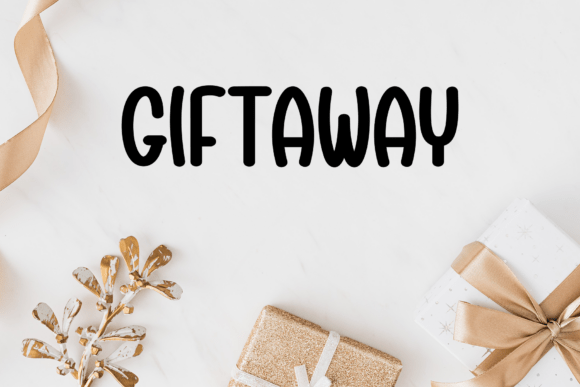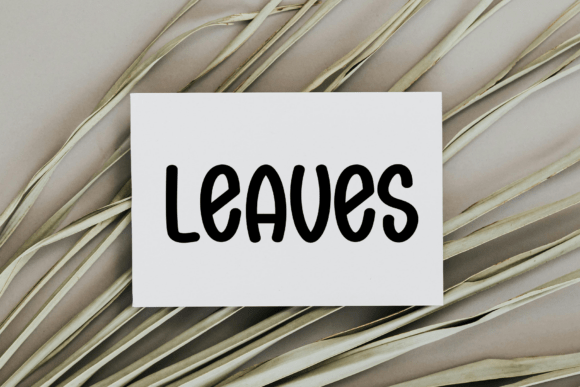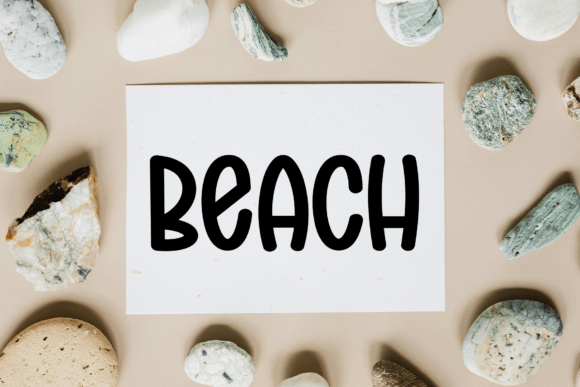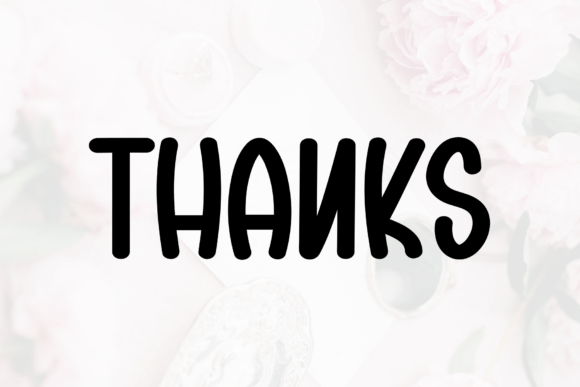
Introduction to Pinks Love Font
Have you ever found yourself stuck on a creative project, struggling to find the perfect font to bring your vision to life? That’s where Pinks Love Font comes in – a sweet and beautiful handwritten font that will add a cozy accent to any design project you wish to create!
Imagine you’re working on a project with a transparent background, and you need a font that will really make your design stand out. With its unique characters that dance along the baseline, Pinks Love Font is the perfect design resource to elevate your work and make it truly special. Whether you’re a seasoned designer or just starting out, this high-quality font is a valuable addition to your toolkit.
Key Features of Pinks Love Font
- Unique, hand-drawn design that adds a touch of whimsy to any creative project.
- Designed to be highly legible and easy to read, making it perfect for titles, headings, and body text.
Honest Review: Pinks Love Font
As a designer, I’m always on the lookout for high-quality design resources to enhance my creative projects. The Pinks Love Font is one such resource that caught my attention.
What works well: ✨ The Pinks Love Font has a unique and playful style that’s perfect for projects that require a touch of whimsy. The font is well-designed and easy to read, making it a great addition to any design.
- Unique and playful style
- Easy to read
However, there are a few limitations: ⚠️ The font only comes in a limited color palette, which may not be suitable for all design projects. Additionally, the transparent background option is not available for all formats, which can be a bit inconvenient.
Overall, the Pinks Love Font is a great addition to any designer’s toolkit. While it may have some limitations, its unique style and high-quality design make it a valuable resource for any creative project.
Pinks Love Font
Pinks Love Font is a high-quality design resource ideal for any creative project that requires a touch of elegance and sophistication. With a transparent background, this font is versatile and can be used in a variety of contexts.
Pinks Love Font is ideal for various creative projects, including wedding invitations, social media graphics, and fashion designs. Its elegant and sophisticated style makes it perfect for any project that requires a touch of luxury.